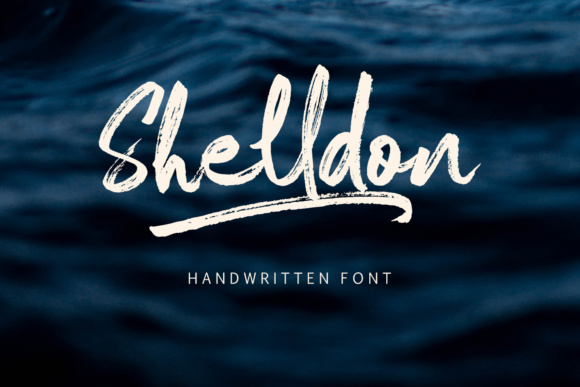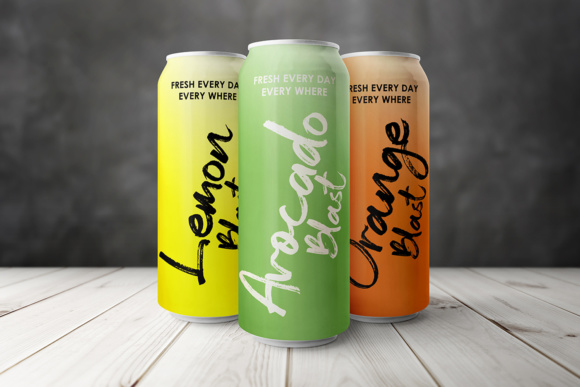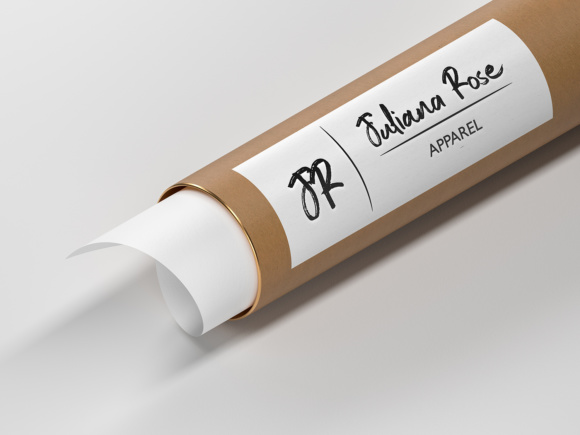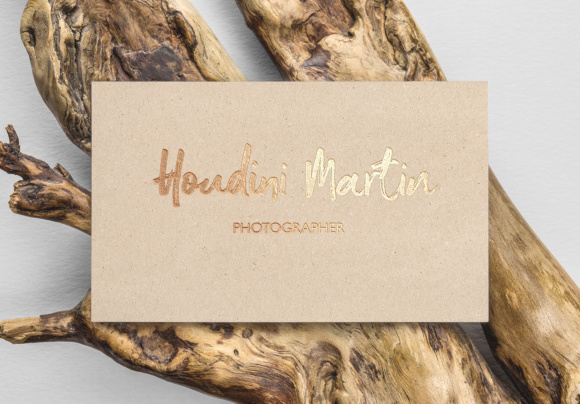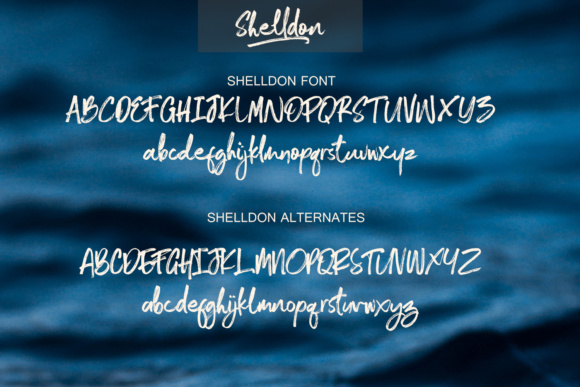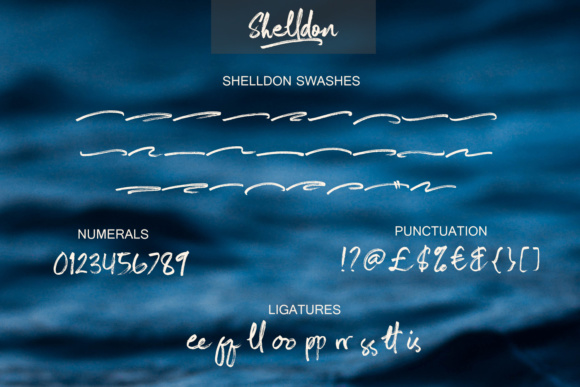
Shelldon Font
Shelldon is a rustic looking handwritten font.
It has a personal charm, featuring quick dry strokes and a signature style.
Shelldon comes with 3 different fonts included:
– Shelldon: A handwritten script font containing upper & lowercase characters, numerals and a large range of punctuation.
– Shelldon Alternate: This is a second version of Shelldon, with a completely new set of both lower and uppercase characters. If you wanted to avoid letters looking the same each time to recreate a custom-made style, or try a different word shape, simply switch to this font for an additional layout option.
– Shelldon Swash: A set of 26 hand-drawn swashes, the perfect finishing touch to underline your Northwell text. Simply install this as a separate font, select it from your font menu and type any A-Z character to create a swash.